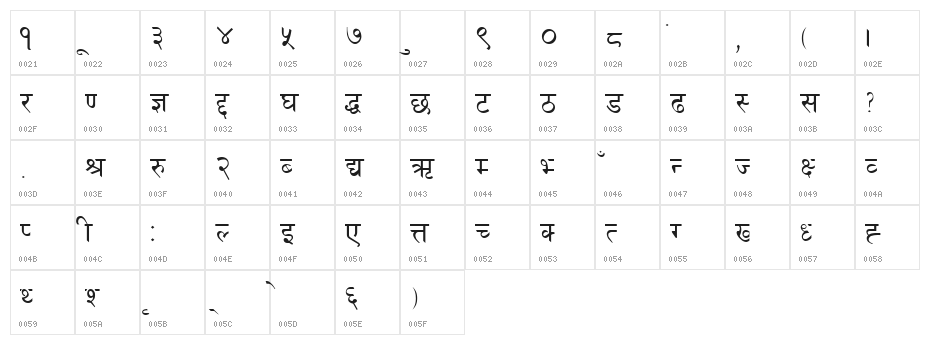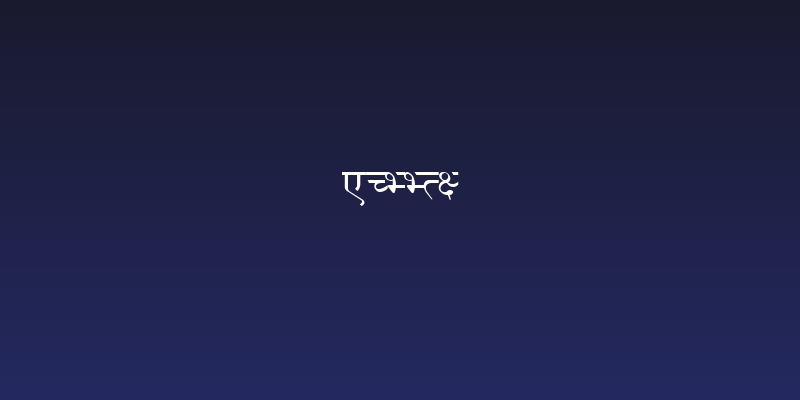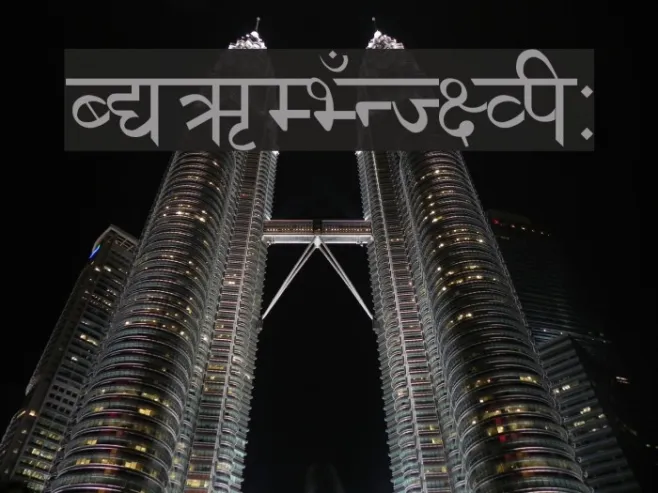
Preeti Font
Preeti Description
This font is a traditional Devanagari script characterized by its elegant and flowing design. The characters are well-defined with a moderate stroke contrast, giving it a balanced and readable appearance. The script maintains a classic look with its intricate curves and loops, making it suitable for formal and traditional contexts. The spacing between characters is consistent, ensuring clarity and legibility. This font is ideal for use in documents that require a touch of cultural authenticity and elegance.
| Use Case | Body text, Formal documents, Cultural publications |
| Proposed Projects | Ideal for cultural publications, educational materials, religious texts, and formal invitations. |